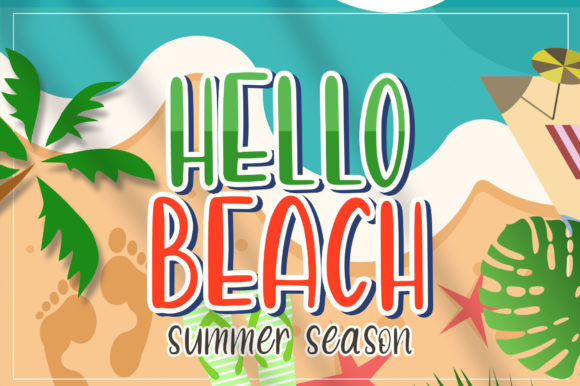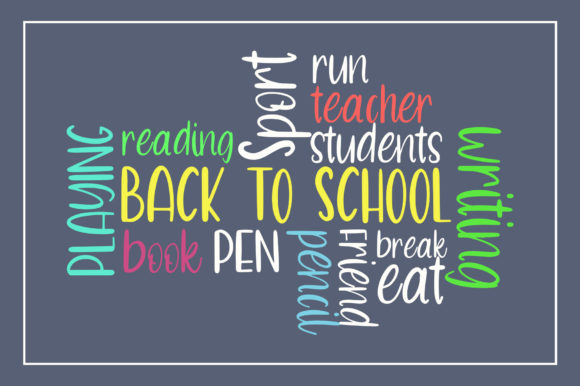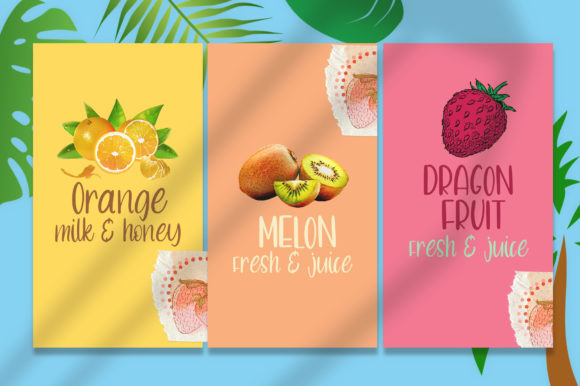
Introduction to Penguin Surfing Font
Penguin Surfing is a quirky and playful display font.
Suitable to a wide variety of designs due to its neat and simple style, this font has the potential to become your favorite go-to font, no matter the occasion .